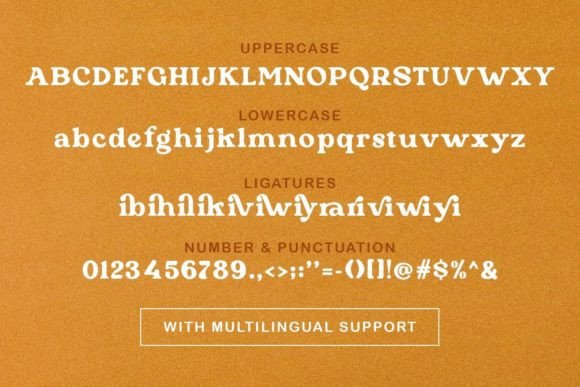
Pure Orange Font
Pure Orange is a stylish and bold serif that will give your presentations and logos a retro and vintage look! It is also suitable for posters, logotypes, quotes, wedding invitations, and more. Use it with confidence, and it will make your projects stunning and unique!